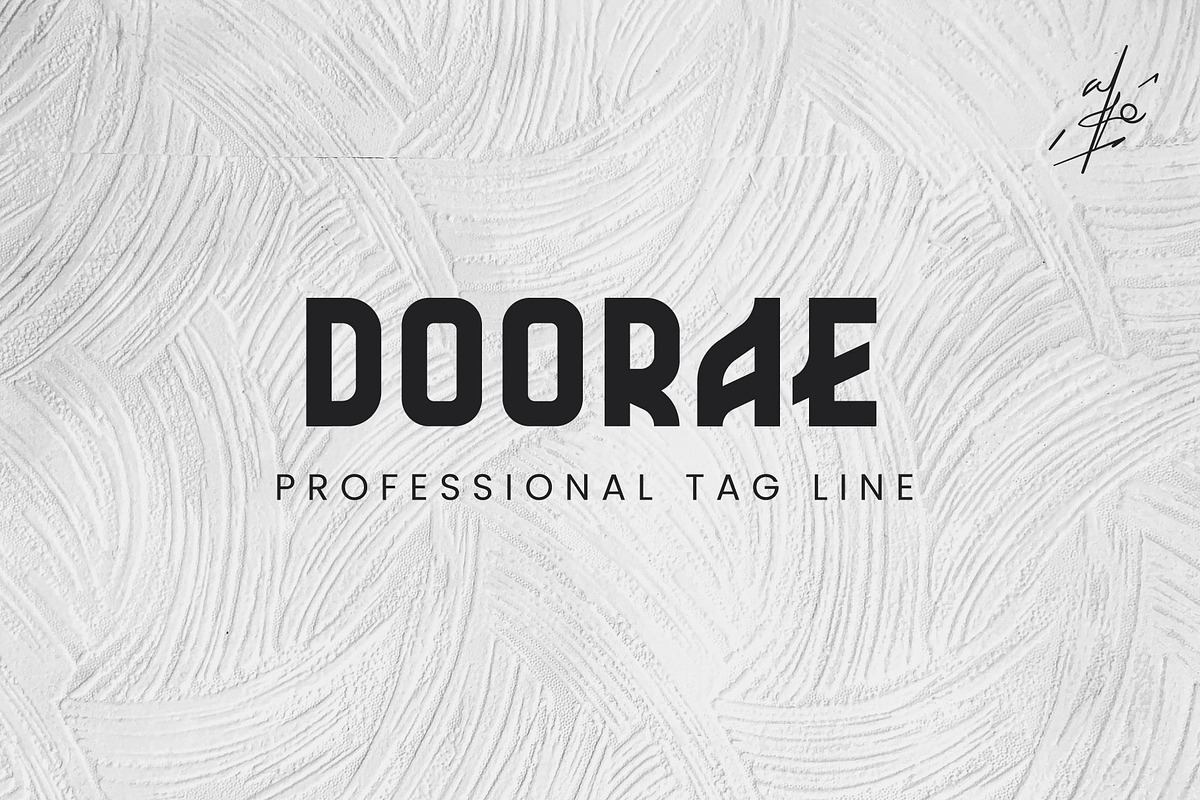
Doorae Sans Serif Font Free Download is a clean, minimal, and modern typeface built for clarity and versatility. With its smooth curves, balanced spacing, and elegant simplicity, Doorae is perfect for branding, editorial layouts, websites, packaging, and professional presentations.
This font stands out with its understated sophistication—making it ideal for projects that need a neutral yet stylish touch. Whether you’re building a luxury brand identity or designing sleek user interfaces, Doorae delivers effortless readability and timeless appeal across both print and digital platforms.
Its neutral tone allows it to pair seamlessly with other typefaces or shine on its own in bold headings and clean body text.